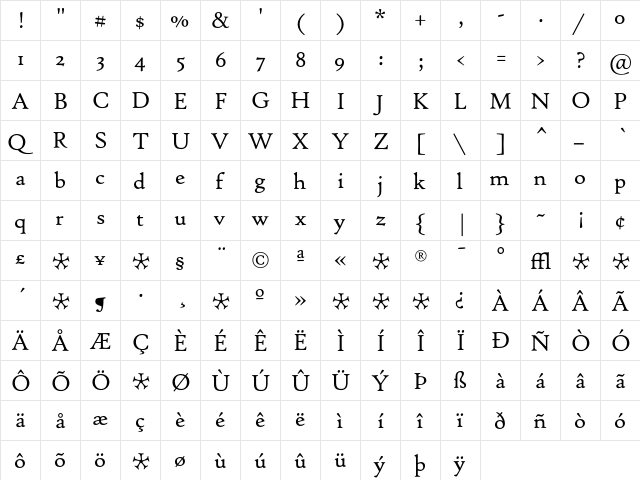
Hightower TextRoman
Design Context for Hightower Typeface
Hightower offers clean, dependable letterforms without strong stylistic allegiance, making it a practical choice for designers who need flexibility.
Pro Tip: Pair Hightower with a font of contrasting weight or personality to build a more expressive typographic hierarchy.